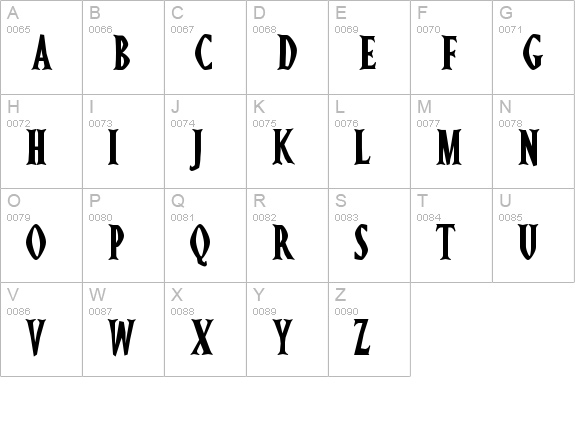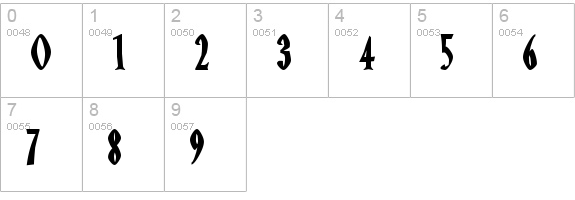
Ghostz is a donationware font in the Theme > Horror category, designed by Darrell Flood. It has been downloaded 95 times and is available for Windows, Mac and Linux.
Introducing Ghostz font, a hauntingly beautiful typeface that will add an ethereal touch to your designs. This font features delicate and elegant letterforms with a ghostly vibe, making it perfect for adding a mysterious and spooky element to your projects. The Ghostz font is versatile and can be used for a wide range of design purposes, from invitations and posters to social media graphics and branding.